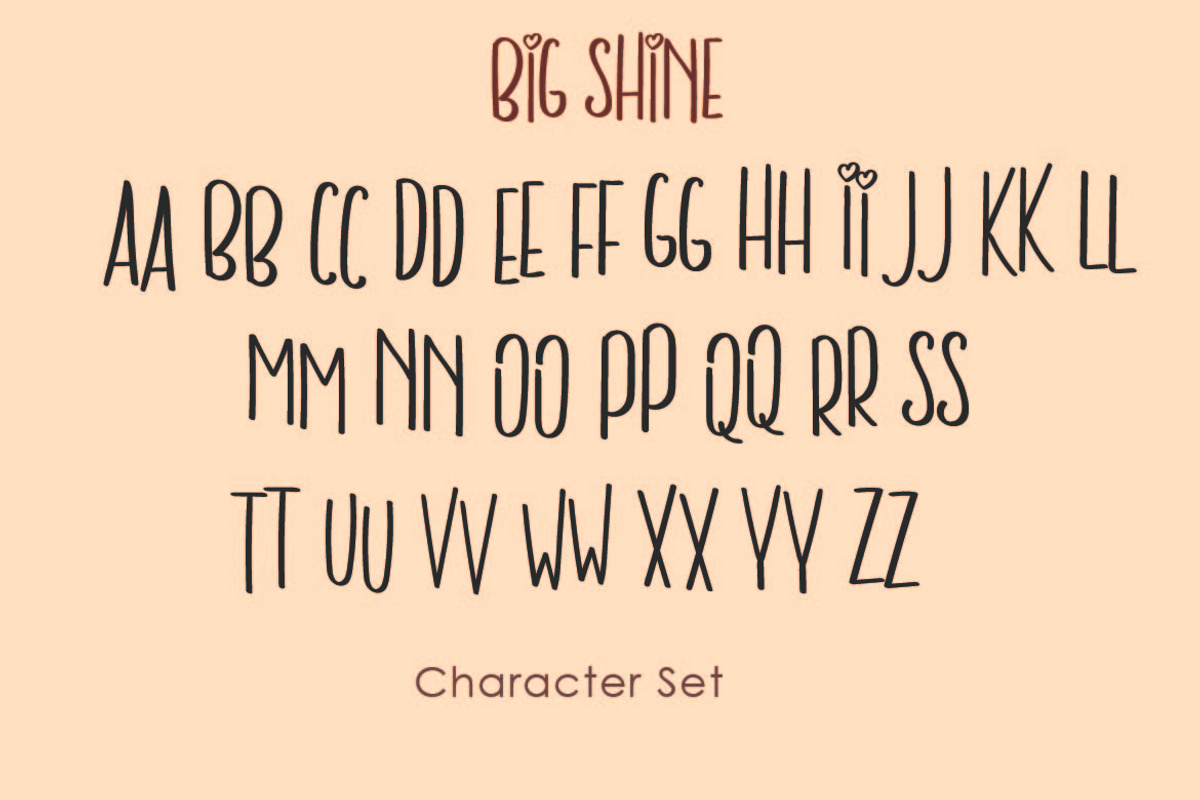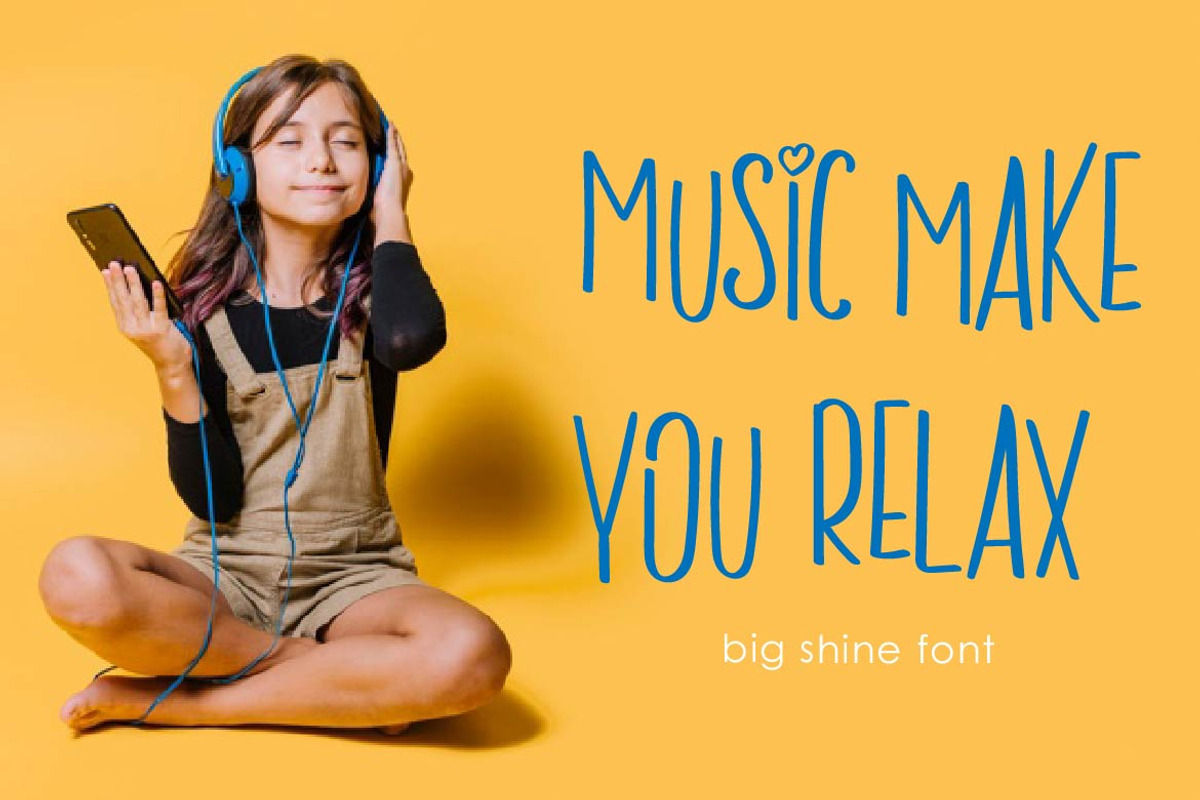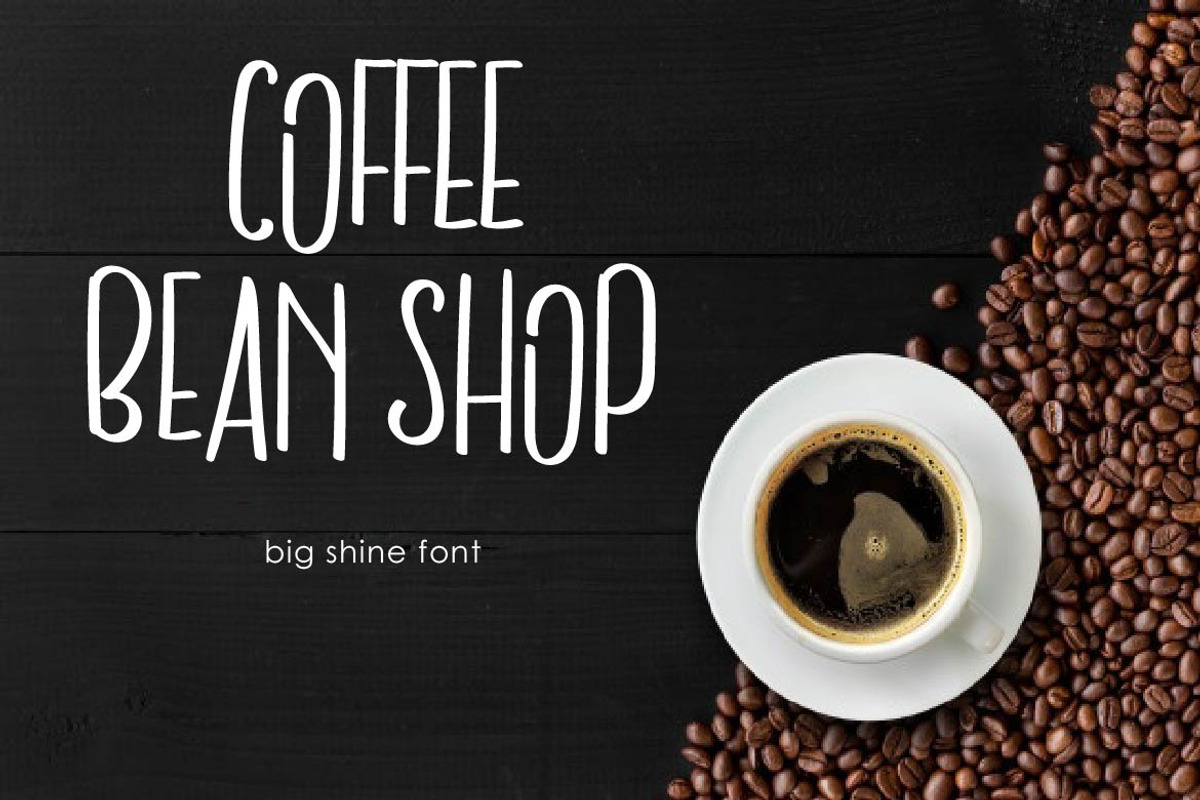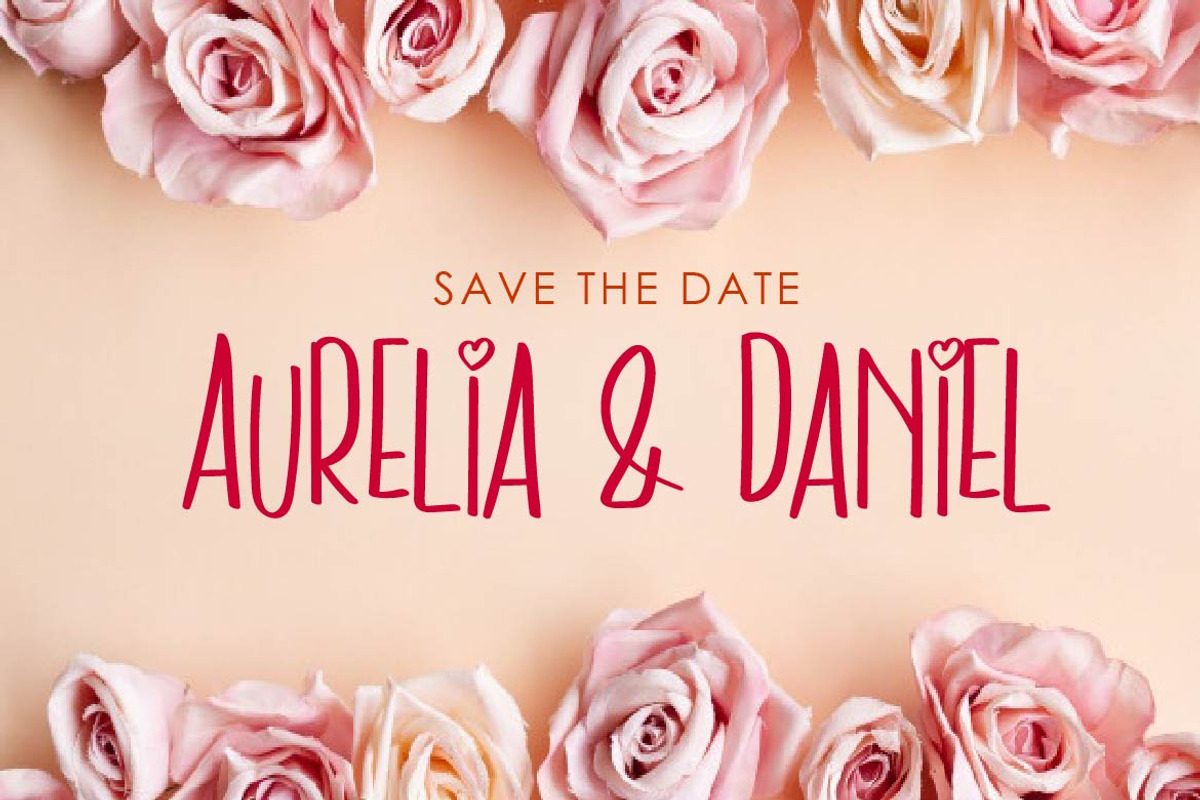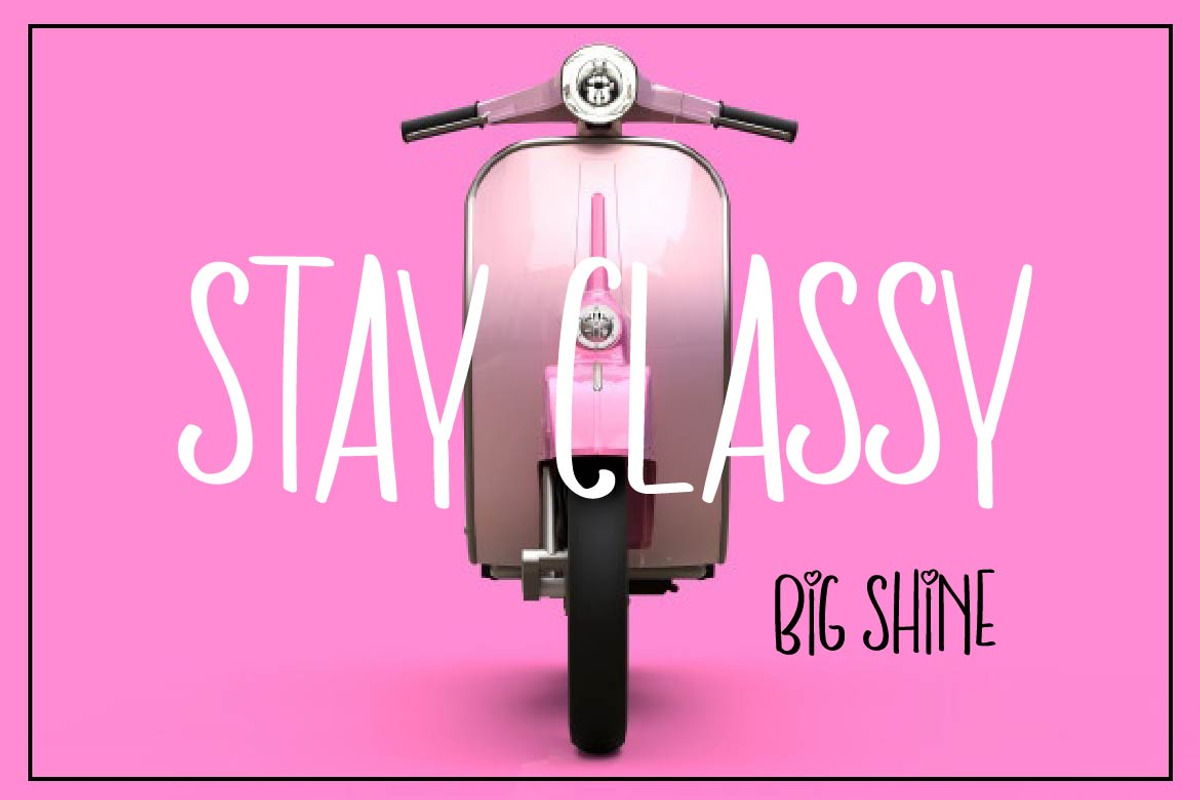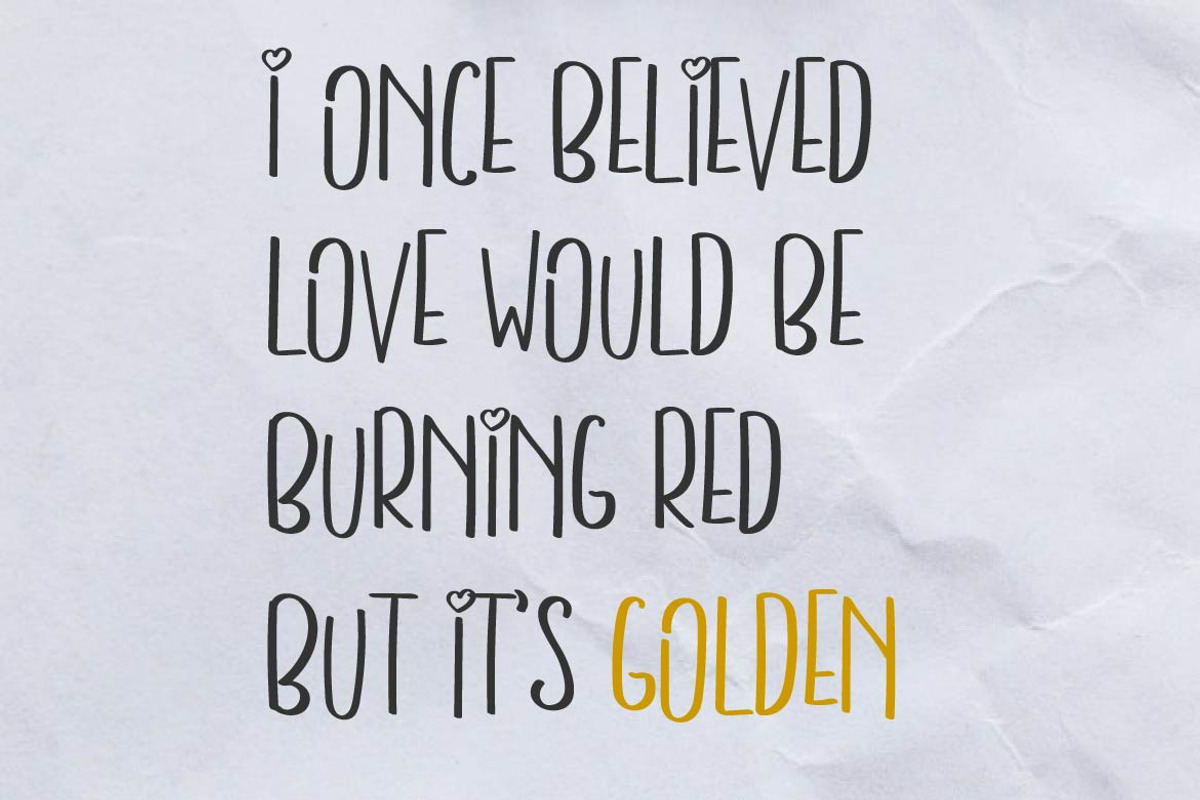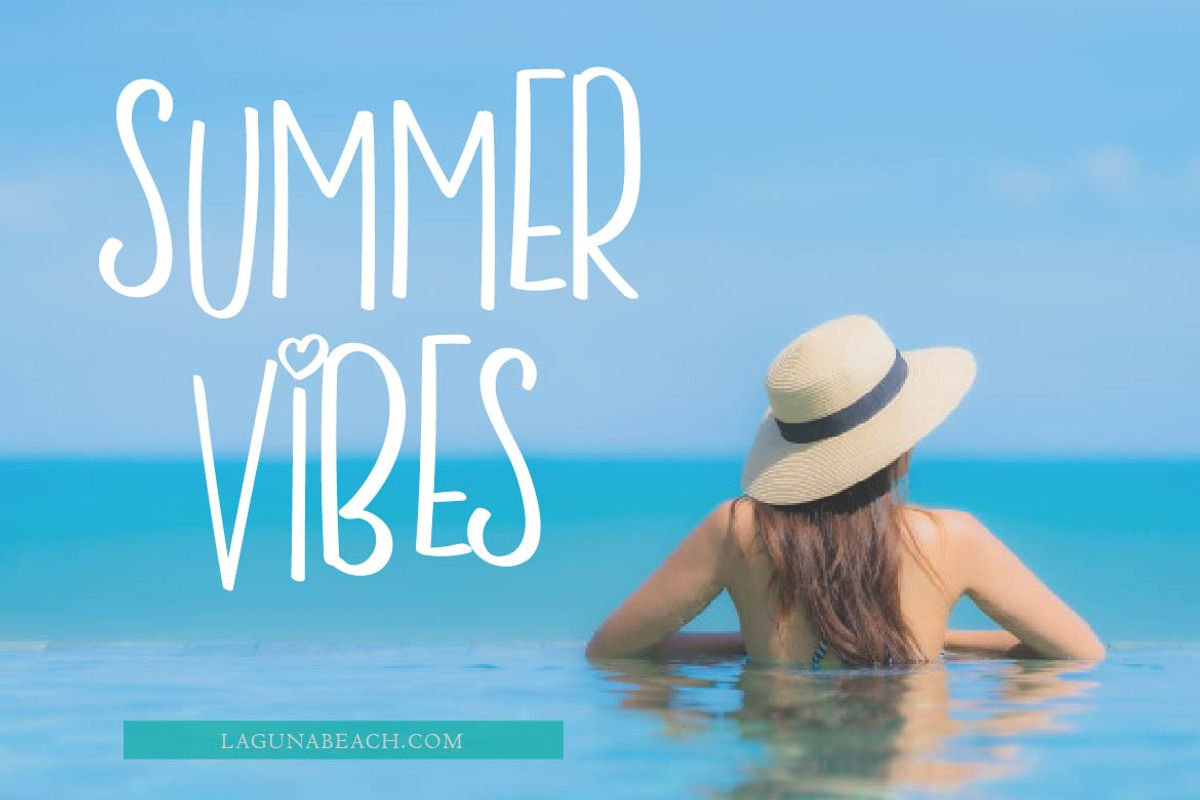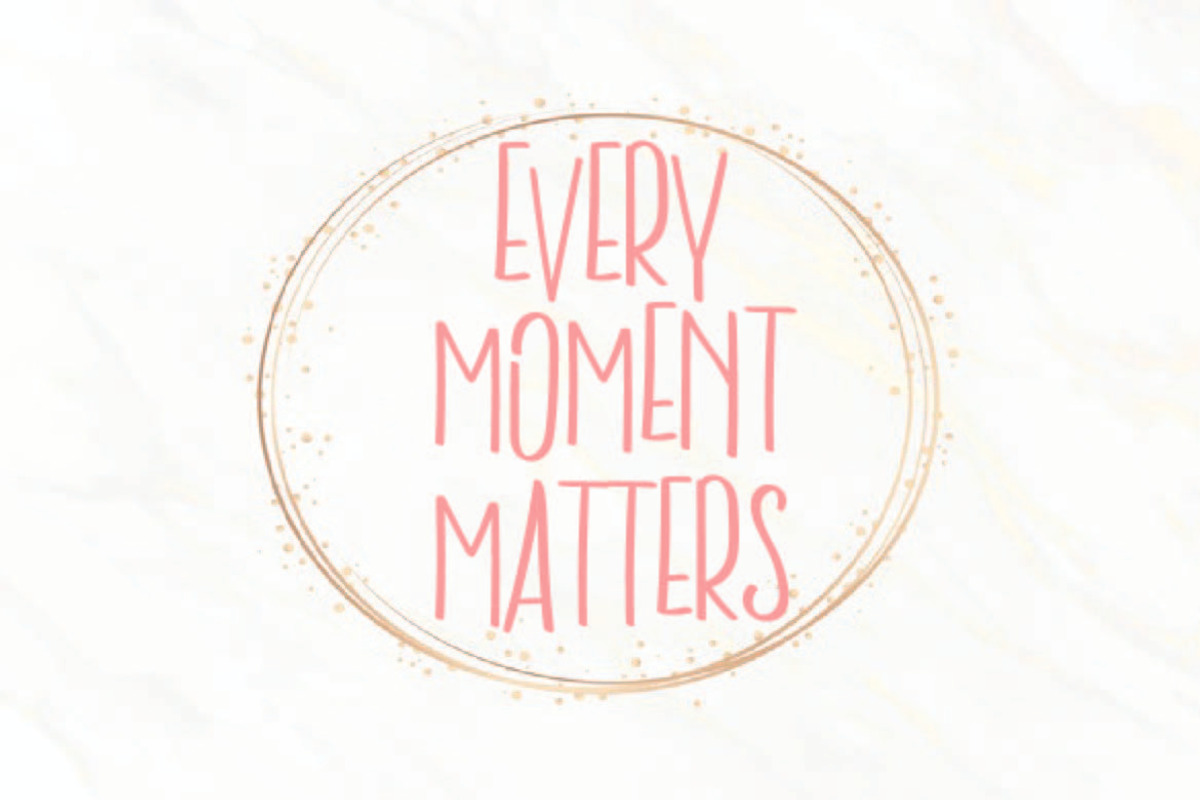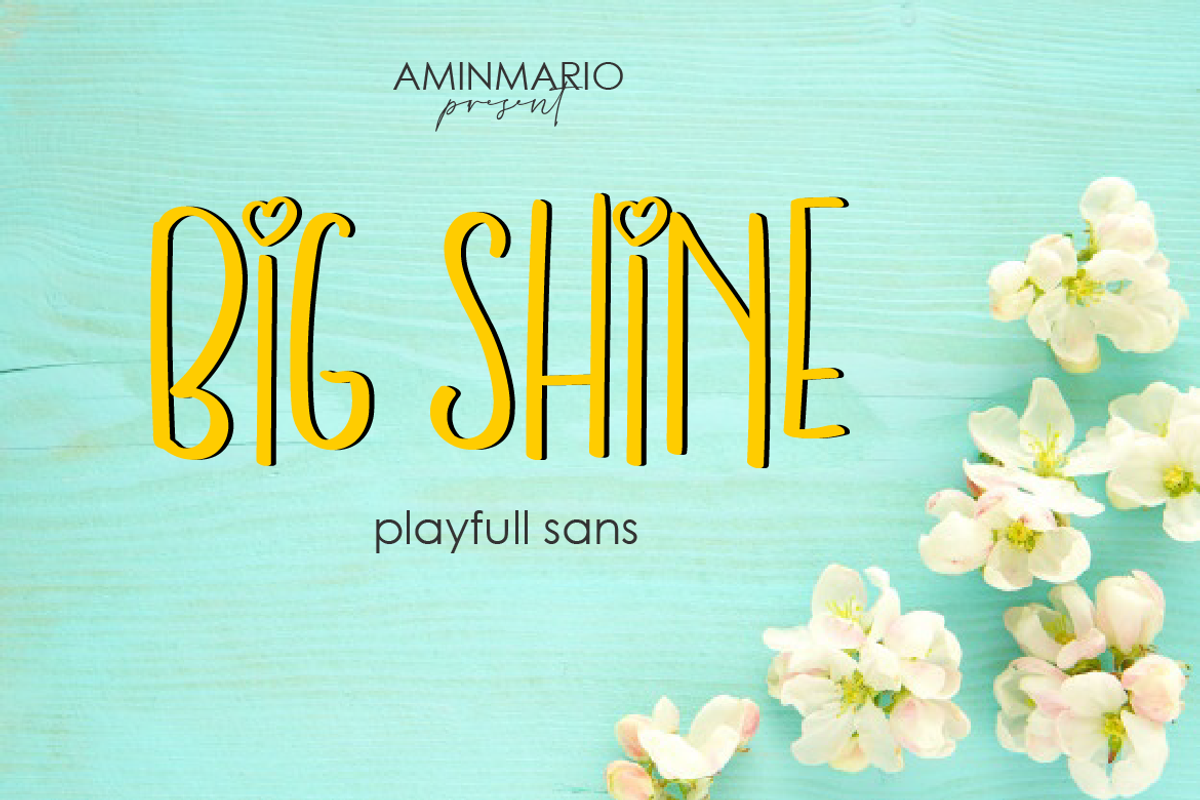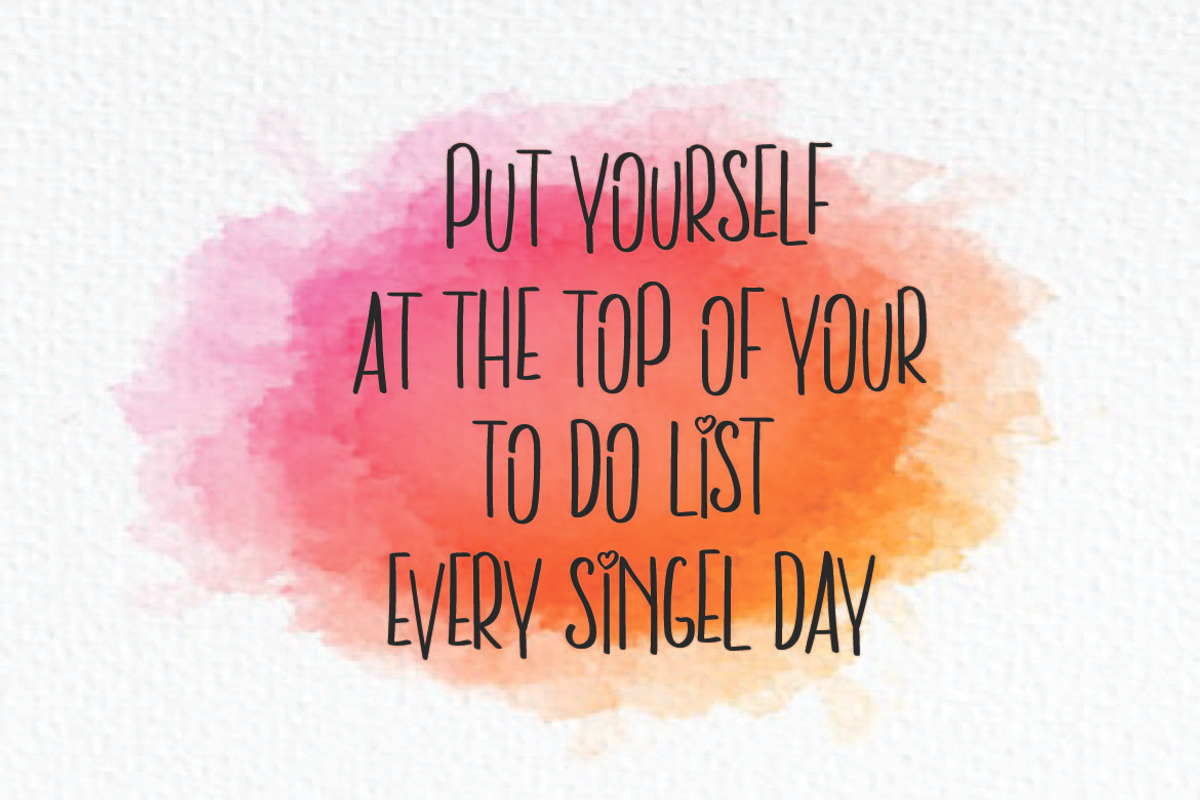
Big Shine
Big Shine is a playful sans-serif handwritten font with friendly look. Full suite of uppercase and lowercase letters with the same shape but different baseline. Big Shine can be used in many style contexts and design environments. Perfect for poster or t-shirt design, magazines, websites, logos, boho wedding invitations and much more! Also support multilingual. Vary the lower- and uppercase letters to achieve a new, unique design every time you use it!